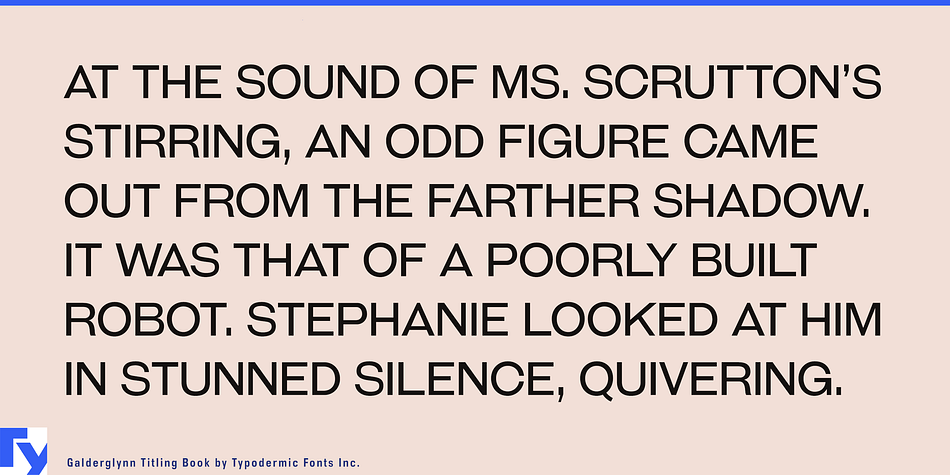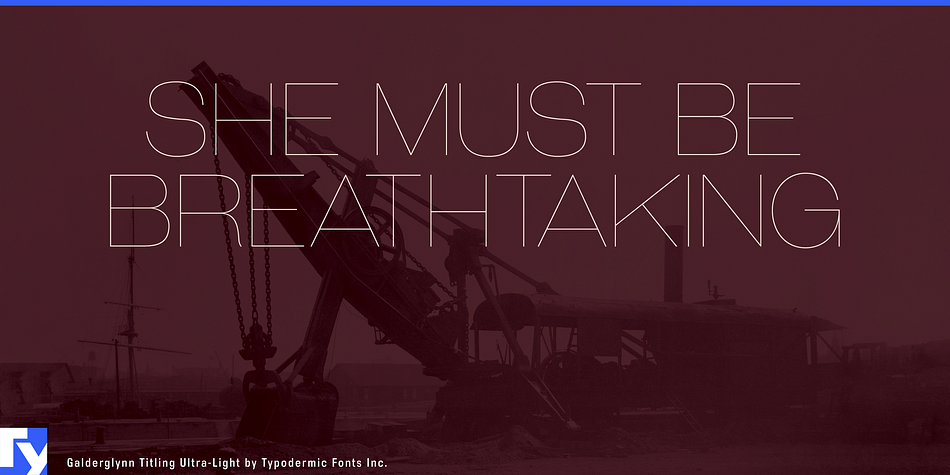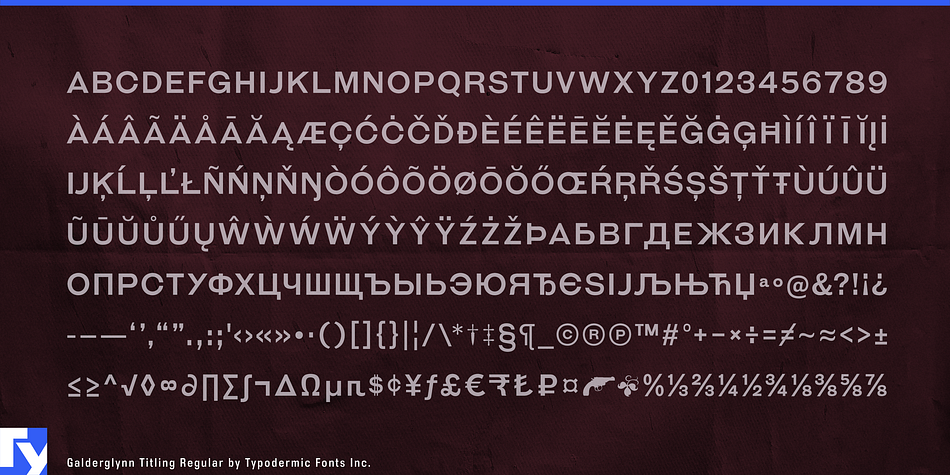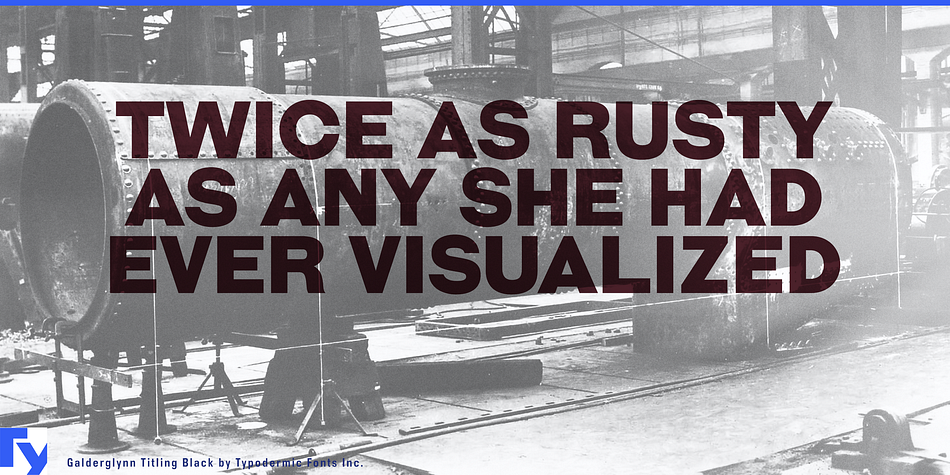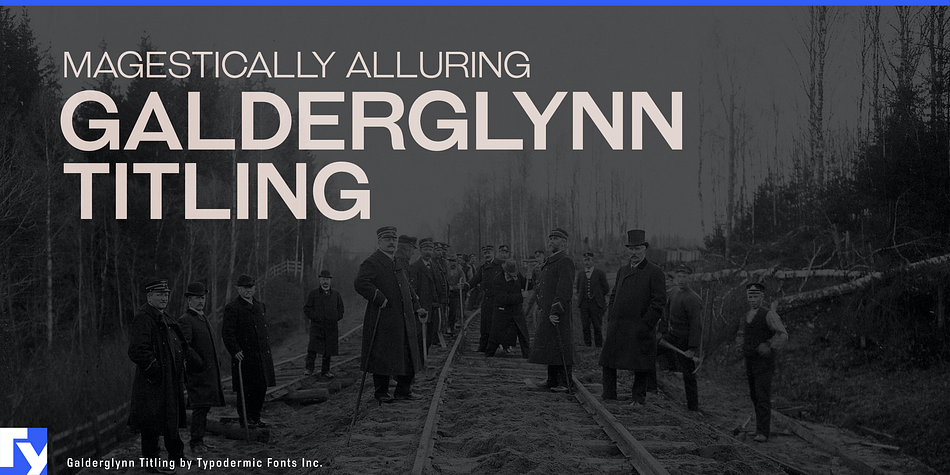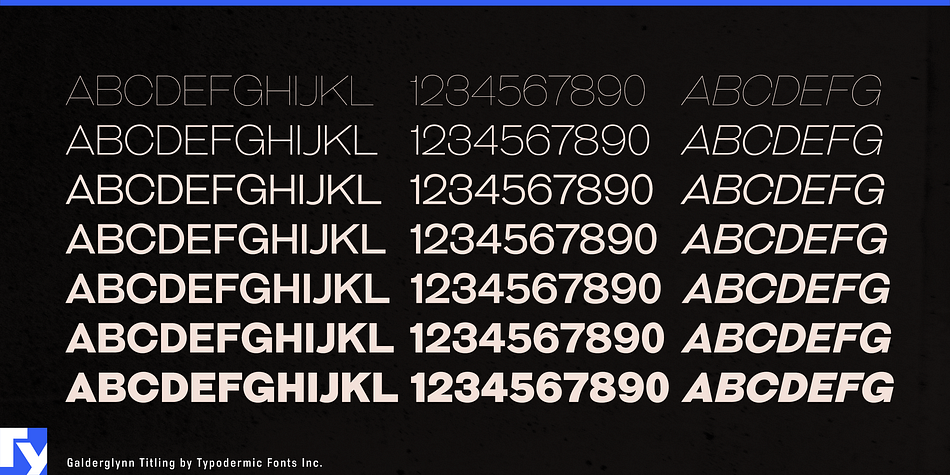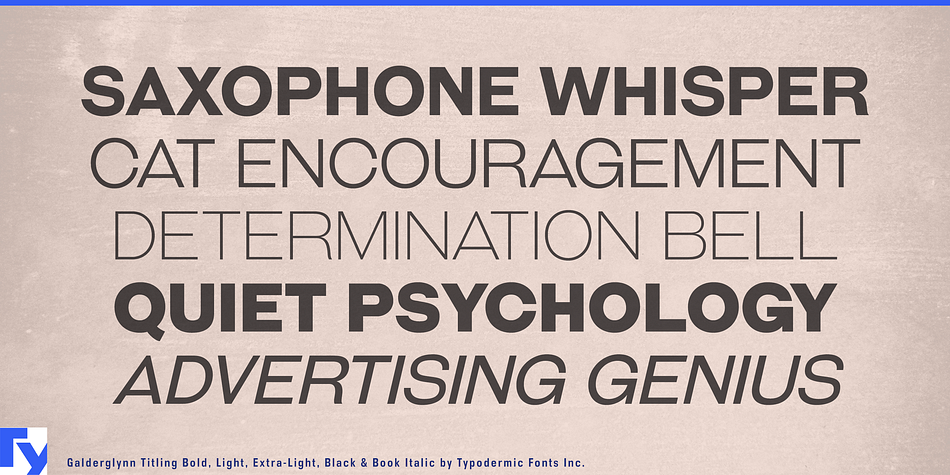
Galderglynn Titling is a display sans font family. This typeface has fourteen styles and was published by Typodermic Fonts Inc.
Galderglynn Titling is a bag of assorted 19th Century metal type. For a version with lowercase, check out Galderglynn Esquire.